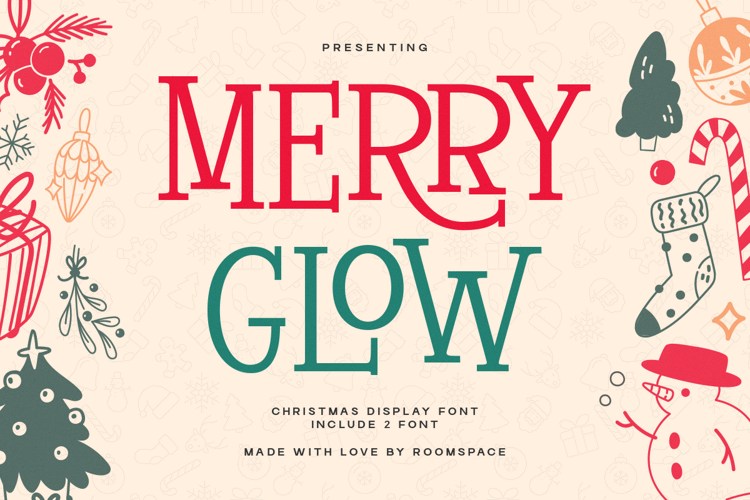
Merry Glow Font
Merry Glow is a cheerful Christmas display font crafted to bring warmth, personality, and holiday magic to every design. Built with soft curves, festive charm, and a friendly serif structure, Merry Glow blends classic holiday spirit with modern handcrafted vibe perfect for projects that need a welcoming seasonal touch.
Designed in two styles, Regular and Shadow, Merry Glow gives you flexibility for standout titles, playful layouts, and cozy winter visuals. The font includes complete uppercase characters, numbers, punctuation, and multilingual support to help you build expressive and polished typography for any festive project.